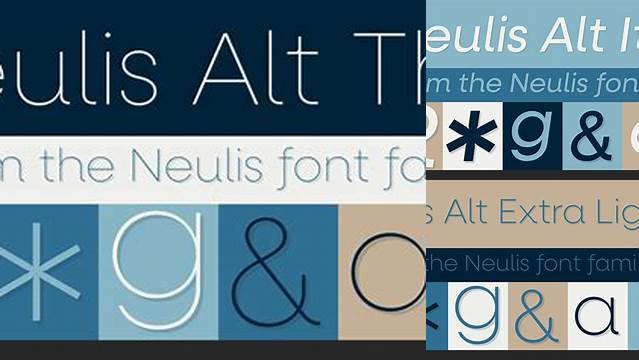
Neulis Alt Font: The Genesis of a Modern Marvel
So, what exactly is the Neulis Alt font family? Well, it's a modern sans-serif typeface that’s got a seriously cool vibe. Picture this: clean lines, a touch of elegance, and a whole lot of versatility. That's Neulis Alt in a nutshell! It's the brainchild of talented designers who clearly understood the power of simplicity and the beauty of well-crafted typography. They've created a font that manages to be both contemporary and timeless, making it perfect for a huge range of projects. From websites and branding to print materials and everything in between, Neulis Alt just works. Its readability is excellent, which makes it a great choice for body text, and its stylish design adds a touch of sophistication that’s hard to beat. The design team behind Neulis Alt clearly put a lot of thought and care into its creation, ensuring that every glyph (that's font lingo for a character) is perfectly balanced and visually appealing. This attention to detail is what sets Neulis Alt apart and makes it such a popular choice among designers worldwide. The font family usually includes a variety of weights and styles, giving you the flexibility to create a cohesive design system. Whether you need a bold headline or a subtle subheading, Neulis Alt has got you covered. It’s like having a whole toolbox of design options at your fingertips. Plus, the fact that you can often find a Neulis Alt font family free download makes it even more appealing. Who doesn't love getting quality design resources without breaking the bank? The designers deserve a round of applause for their creation. Their vision has created a font that continues to inspire and empower creatives everywhere. The Neulis Alt family is a true testament to the power of good design and the impact a well-crafted typeface can have. It's a gift to the design community, and we’re lucky to have it!
Why Choose Neulis Alt? Font Features and Benefits
Why should Neulis Alt be your go-to font? Well, let me tell you! The features and benefits of this font are truly impressive. First off, let's talk about readability. In today's fast-paced digital world, you need a font that’s easy on the eyes, and Neulis Alt delivers on that front. It's designed with clarity in mind, making it super readable whether you're using it on a website, in a document, or on a poster. This is especially important for body text, where ease of reading is paramount. Next up, versatility. Neulis Alt is like the Swiss Army knife of fonts. It works beautifully in a wide array of applications. From clean and modern website designs to elegant branding materials and engaging print layouts, this font fits right in. Whether you're a seasoned designer or just starting out, you'll appreciate its flexibility. Then there is the modern aesthetic. Neulis Alt just looks good. It has a contemporary feel that's right on trend, giving your designs a fresh and stylish edge. This is particularly important in today’s design landscape, where keeping up with current trends is vital. Plus, its clean lines and subtle details ensure that your work always looks polished and professional. The font also offers a wide range of weights and styles, offering a lot of different options. Having several options within a font family is essential for any designer, and Neulis Alt certainly doesn't disappoint here. This variety allows you to create a hierarchy of text that is both visually appealing and functional. You can use lighter weights for body text and bolder weights for headings and subheadings, ensuring a clear and organized layout. The font family typically includes regular, italic, bold, and sometimes even extra-bold and condensed versions. This gives you the creative freedom to experiment and find the perfect look for your projects. Lastly, and perhaps most importantly, Neulis Alt font family free downloads are often available, making it an accessible option for everyone. Access to high-quality fonts should be easy, and this font ensures that. This affordability allows designers of all levels to create professional-looking projects without the financial burden of expensive font licenses. In short, choosing Neulis Alt means choosing quality, versatility, and style—all at an accessible price.
Exploring Neulis Alt's Design Characteristics and Aesthetics
Let's get down to the nitty-gritty of what makes Neulis Alt so visually appealing. The core of its design lies in its clean lines and a minimalist approach. This means that the letters are designed with simplicity in mind, free from unnecessary embellishments or distractions. This sleekness allows the font to work seamlessly in various design contexts, from the most modern websites to classic print layouts. Its geometric shapes, subtle curves, and carefully considered letterforms contribute to its overall balanced appearance. Each character is meticulously crafted, giving the font a sense of harmony and visual consistency. The consistent stroke weights further enhance this harmony, making the font easy to read and aesthetically pleasing. The careful attention to detail is something that designers really appreciate, as it enables a high-quality look. The font’s design isn't just about aesthetics; it’s also about functionality. Neulis Alt is optimized for both legibility and usability. The letters are designed to be easily distinguishable from one another, making it easy for readers to process the text quickly and efficiently. It’s perfect for large blocks of text, which is ideal for body text in books and long-form articles. Another key aspect is its versatility. This font seamlessly adapts to different applications, from large headlines to small body text. Whether used in digital or print media, Neulis Alt maintains its elegance and effectiveness. The typeface's neutral personality makes it a chameleon, capable of taking on different roles depending on the project it is used for. It’s an incredibly flexible font, suitable for a wide range of design styles and project requirements. Finally, the overall aesthetic is one of understated sophistication. Neulis Alt conveys a sense of modernity, professionalism, and approachability. It’s a design choice that communicates a sense of quality and attention to detail. This balance of form and function is what makes Neulis Alt an exceptional choice for designers. If you're seeking to inject a touch of class into your projects, then you should explore this beautiful font.
Neulis Alt Font: Best Practices for Integration
Neulis Alt Font: Practical Applications in Design
Let's get down to how to make the magic happen with the Neulis Alt font family! This amazing font can be used in a lot of design applications. Let's explore some practical uses. The versatility of Neulis Alt makes it a fantastic choice for websites. Use it for headers, body text, and calls-to-action. Because of its readability, it's an excellent option for displaying text on websites, ensuring an appealing visual experience. Its modern aesthetic provides a clean and contemporary look, ideal for a variety of website designs. The font's elegant lines create a sleek, professional aesthetic. This makes it a fantastic option for branding and corporate identity. You can create logos, business cards, and marketing materials that reflect your brand's style. This gives you a design that creates brand recognition and a positive image. You can also use it in print design. Neulis Alt is suitable for use in brochures, flyers, and posters. Whether used for headings or body text, it ensures clear communication and a visually pleasing design. Use the different weights and styles for effective hierarchy. The clear legibility makes it ideal for publications and long-form documents. It can be used in books, magazines, and reports, making for ease of reading. The design's clean and modern style makes it an ideal option for both digital and print mediums. It works beautifully in UI/UX design, making it a go-to for user interface design. The font's clarity, readability, and flexibility make it a great choice for designing interactive elements and ensuring a smooth user experience. It provides a friendly and functional look to the design, which allows for a better user interface. With a Neulis Alt font family free download, the possibilities are limitless, so get your creative juices flowing.
Using Neulis Alt for Web Design Projects